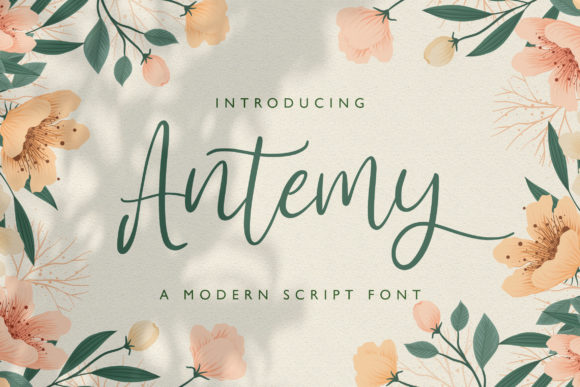
Introducing Antemy Font Family, an exquisite creation by StringLabs, designed to bring a touch of elegance to your creative endeavors. Antemy is a captivating flowing handwritten font that invites you to immerse yourself in its graceful lines and alluring curves. With its striking and timeless style, Antemy is the perfect font for crafting designs that exude a sense of sophistication and charm.
Explore the versatility of Antemy's expansive character set, which includes a beautiful array of glyphs and swashes. Unleash your creativity and let your designs flourish with Antemy's PUA encoding, ensuring effortless access to the full spectrum of this font's splendor.
Antemy's delicate strokes and refined details make it an ideal choice for creating logotypes that demand attention. Its inherent charm and elegance elevate your designs, conveying a sense of professionalism and artistry. Whether you're crafting logos for businesses, personal brands, or special events, Antemy's timeless appeal ensures your designs will leave a lasting impression.
Envision your designs adorned with Antemy's graceful lettering, evoking a sense of nostalgia and romance. Craft wedding invitations, greeting cards, and other heartfelt creations that capture the essence of your emotions. Antemy's versatile nature allows you to explore a diverse range of design aesthetics, from classic and timeless to modern and whimsical.
Indulge in the creative freedom that Antemy provides. Let your imagination soar as you design stunning posters, flyers, and social media graphics that captivate your audience. Antemy's inherent beauty adds an air of sophistication to your designs, making them stand out from the crowd.